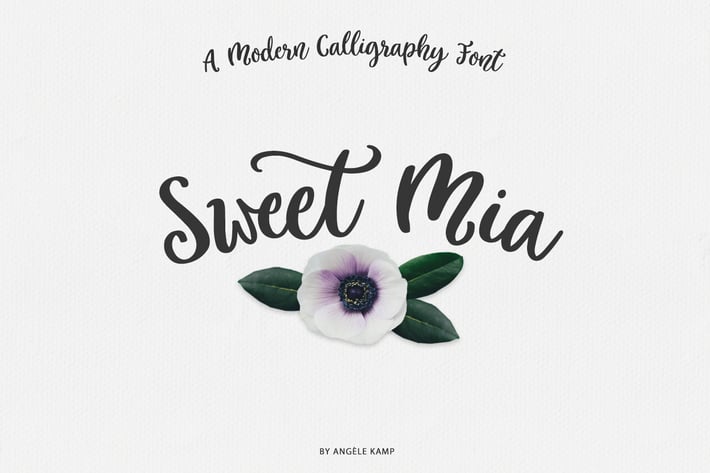
Sweet Mia modern calligraphy font
Sweet Mia is a playful modern calligraphy font with a dancing baseline. This sweet font has nice smooth lines and is perfect for crafters and cutting machines. Sweet Mia will look gorgeous on cards, mugs, quotes, logos and all your other lovely projects.